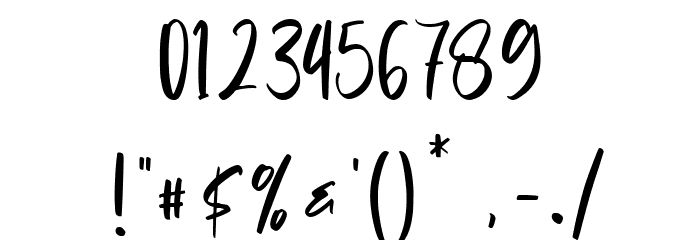
Cinthya Einzberg Font
Cinthya Einzberg Description
This font features a lively and expressive script style, characterized by its flowing and interconnected letterforms. The uppercase letters exhibit a playful elegance with varying stroke widths, while the lowercase letters maintain a consistent rhythm and fluidity. The numerals are bold and slightly whimsical, complementing the overall aesthetic. Special characters are crafted with the same attention to detail, ensuring a cohesive look across all glyphs. The font's dynamic nature makes it suitable for creative and artistic projects, adding a personal touch to any design.
A lively and expressive script font with flowing, interconnected letterforms from Uncategorized fonts.
- Font: Cinthya Einzberg
- Proposed Projects: Ideal for wedding invitations, greeting cards, branding, and artistic projects requiring a personal touch.
- Use Case: Logos, Headlines, Invitations